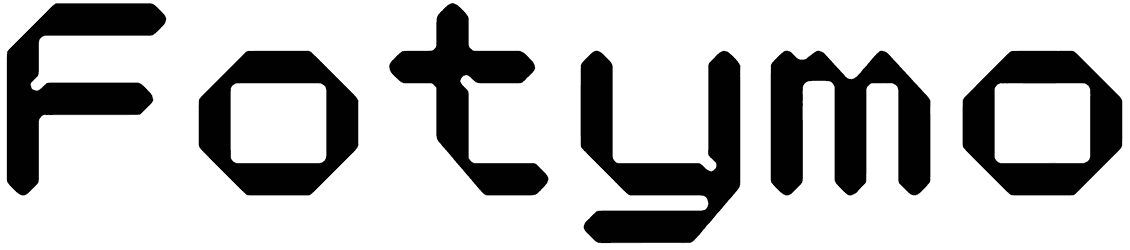
Fotymo Font
Giving a digital mood to the words of your design will result in capturing a lot of fans. If you want to have such a style for your project, this 8-bit font is going to impress you. Unique characters of Fotymo font can a…
Giving a digital mood to the words of your design will result in capturing a lot of fans. If you want to have such a style for your project, this 8-bit font is going to impress you. Unique characters of Fotymo font can amp up your innovative website design and reflect your special taste. Try this computer font for your future design and make it super cool.